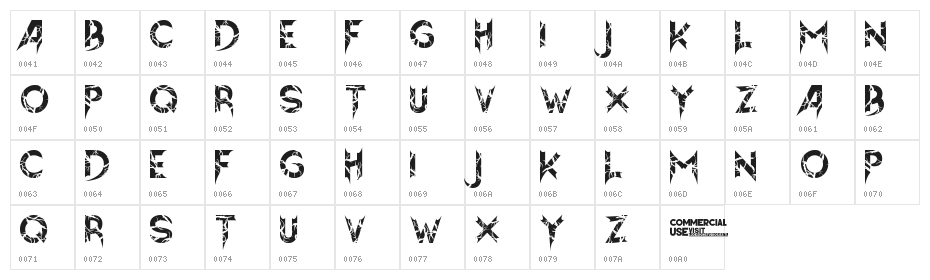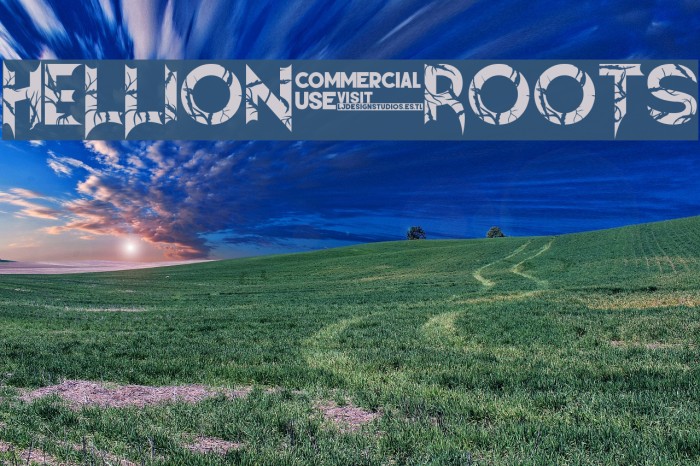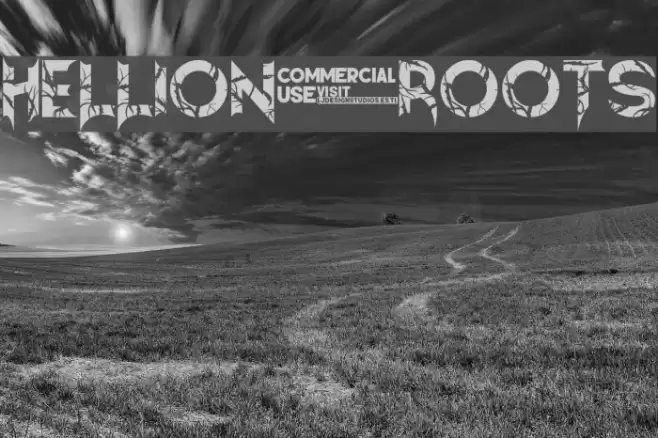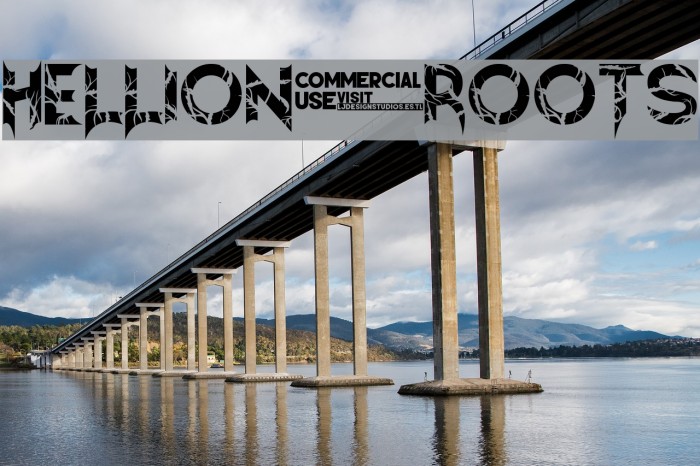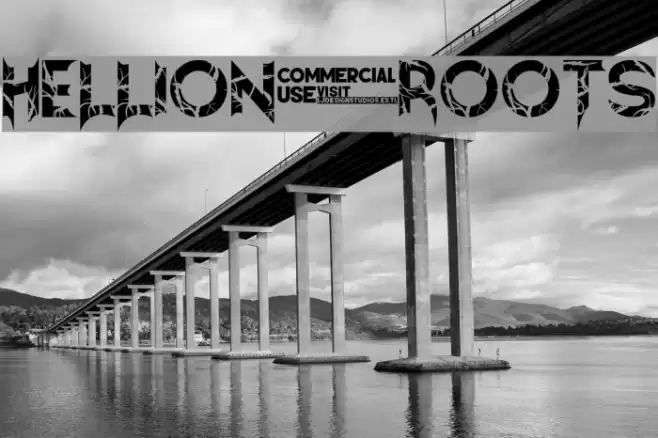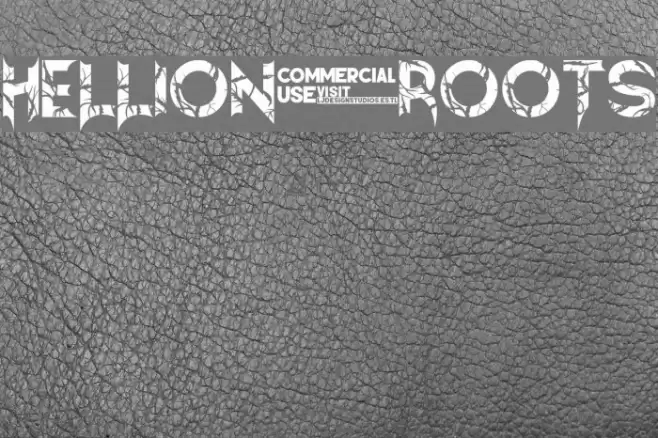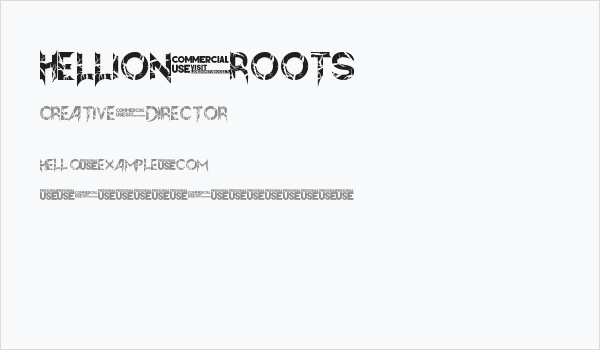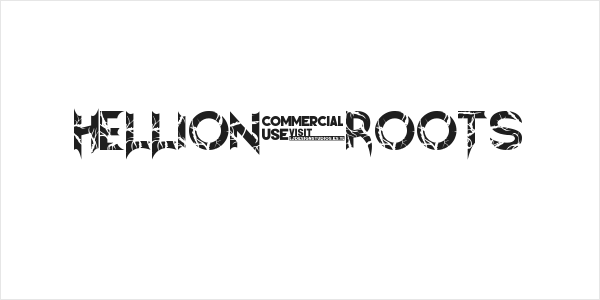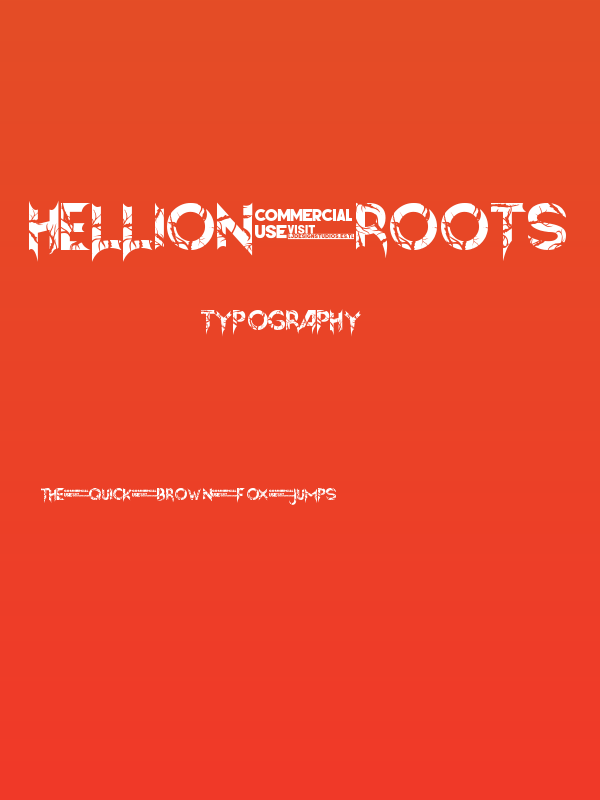
Hellion Roots Font
Hellion Roots Description
This font features a bold and aggressive design with sharp, angular edges and a fragmented, shattered appearance. The characters are heavily stylized, giving off a rebellious and edgy vibe. The uppercase letters are particularly striking, with jagged lines and a sense of movement that suggests chaos and energy. The font's unique style makes it stand out, perfect for projects that require a strong visual impact. Its decorative nature is ideal for creating eye-catching headlines or logos that demand attention.
| Overall Style | Modern, Edgy |
| Proposed Projects | Ideal for music album covers, event posters, or branding for edgy and modern products. |